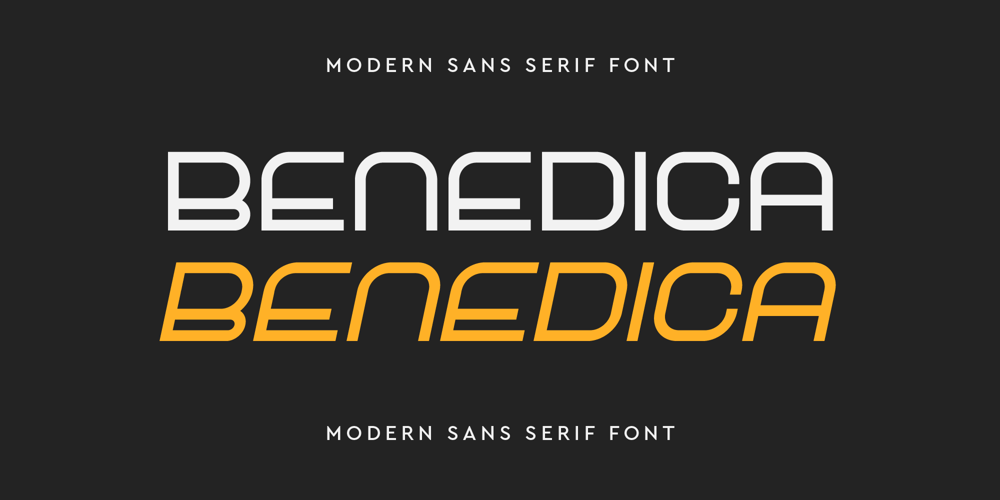
Benedica Font Family was designed by Iwan Alwan and published by Artiveko. Benedica contains 2 styles and family package options. Benidica is a modern tech sans serif font designed by Iwan Alwan, known for its unique shapes and versatile variations in uppercase and lowercase characters.This font stands out with its clean, contemporary style, making it perfect for cutting-edge digital projects. Benidica supports multiple languages, ensuring global accessibility and usability. Whether you’re designing a website, creating a logo, or developing an app, Benidica offers the sophistication and functionality you need to make your project shine.